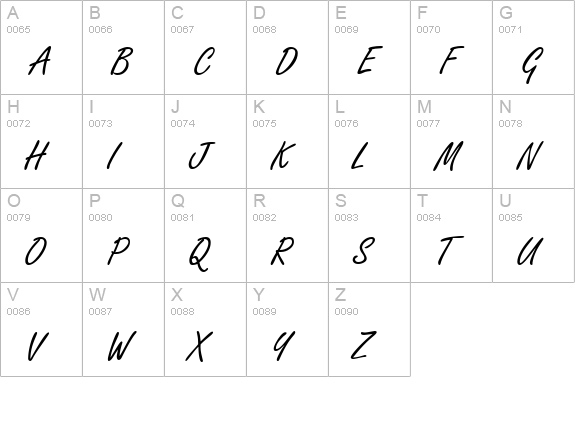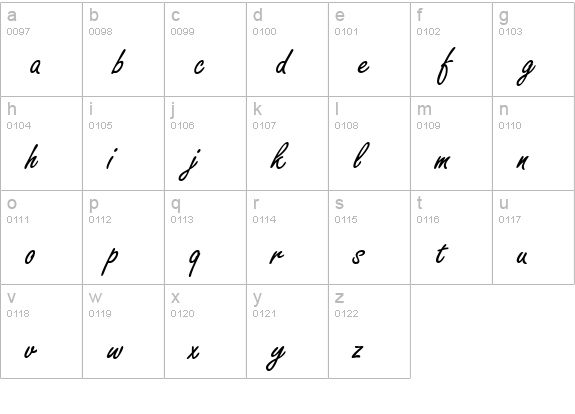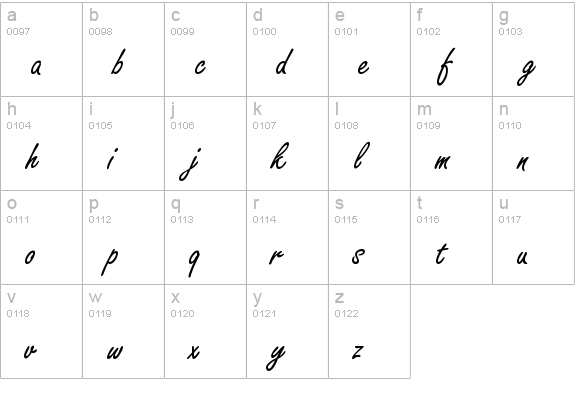
FreelanceScript Regular is the standard, neutral variant in the FreelanceScript typeface family \xE2\x80\x94 well suited to general body text, paragraphs, and standard typographic work.
FreelanceScript Regular font is a sleek and modern typeface perfect for adding a touch of elegance to your projects. With its clean lines and smooth curves, this font exudes professionalism and style. Whether you're designing a logo, creating a website, or crafting a marketing campaign, FreelanceScript Regular is sure to make your text pop. The best part? This font is completely free to download at FontsMarket.com. So go ahead and elevate your designs with this versatile and eye-catching typeface. Download FreelanceScript Regular today and take your projects to the next level!